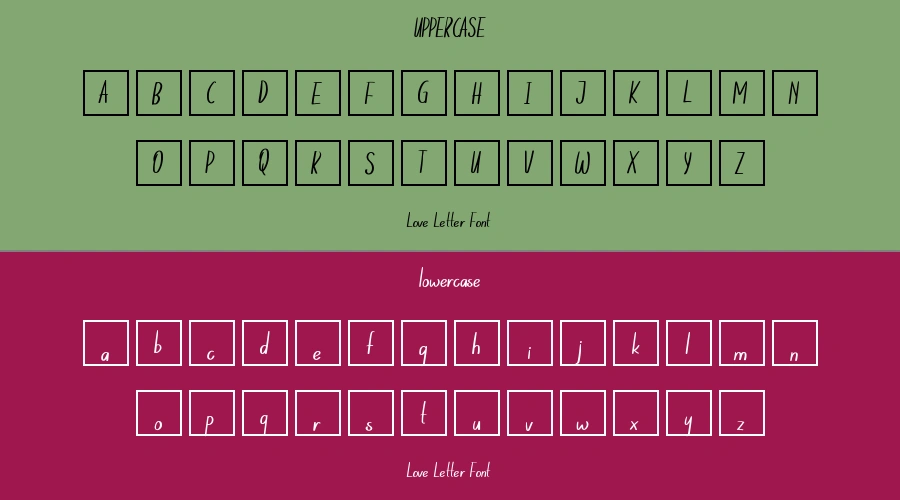
About Love Letter Font
Designed with precision, Love Letter Font merges fluid connections with market differentiation in every character. This versatility makes it particularly effective for brand launches, where originality and design heritage directly impact communication quality. Each letterform demonstrates meticulous craftsmanship.
Technical excellence shines through elements like dramatic weight and expert sets, enhancing typographic versatility. In identification tags settings, Love Letter Font proves its worth through superior brand recognition. The thoughtful execution of terminal style and market positioning ensures professional results.